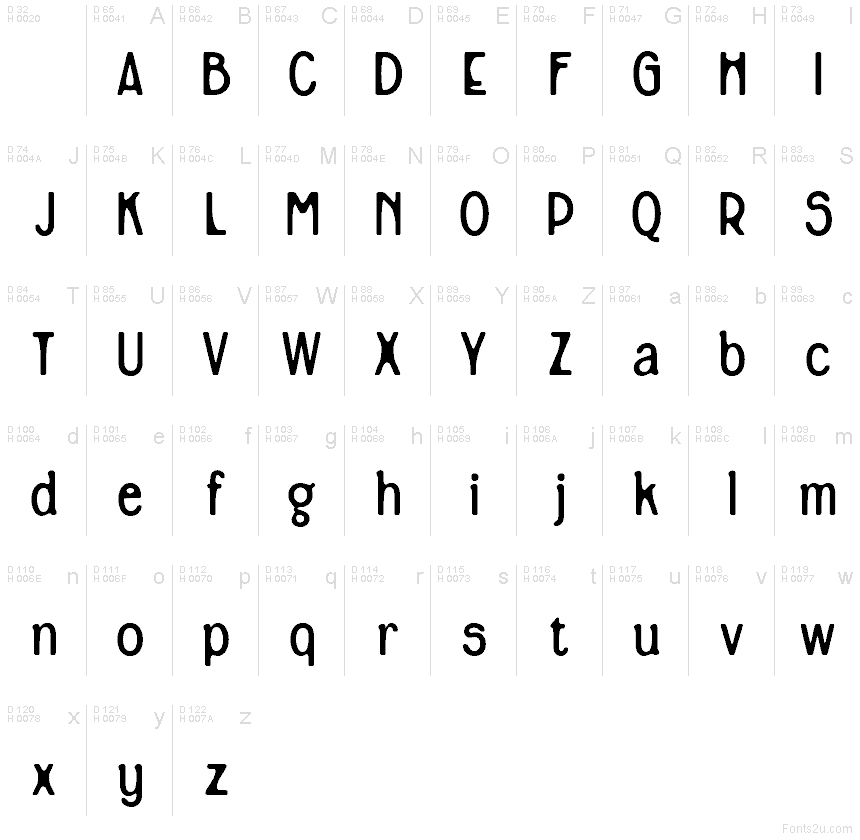
CS Alonzo Drawn font is a casual and organic design by Craft Supply Co. Slightly eroded and handwritten, the letters of this sans serif font are free and alive in their shape, which also greatly ladds to their approachable look. The modern yet primitive build of every character results in this charming display stype that can easily enchant.
CS Alonzo Drawn uses are versatile and include branding, posters, Televesion, games, YouTube channels visuals, schools projects, comics coverts or pages text inside. Use this free modern font for skateboards prints or any other personal suggestions you might have at hands reach!\n